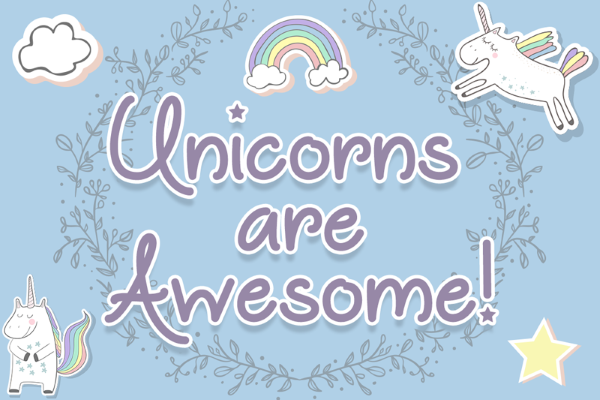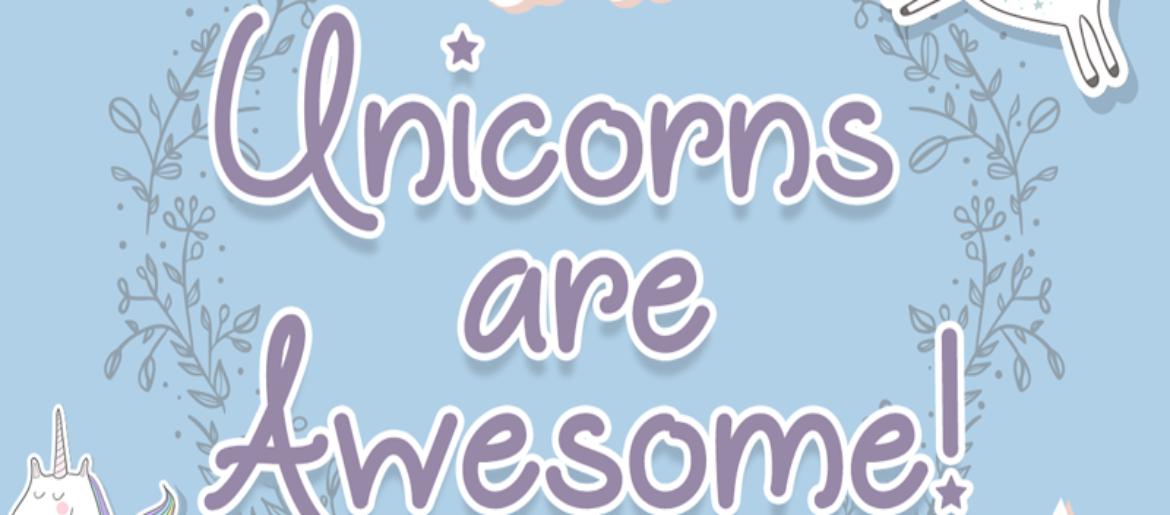
Unicorns are Awesome Font
Unicorns are Awesome by Mistis Fonts is a flowing, hand-drawn casual script that radiates the kind of warm, friendly energy that immediately puts its reader at ease. Its approachable letterforms are cute without being saccharine — loose, natural, and carrying the breezy confidence of someone who writes just like they speak. A perfect match for cartoon and comic book titles, children’s content, social media branding, apparel and sticker design, birthday invitations, and any project where the goal is to feel genuinely close to its audience rather than speak down to it. Free for personal use.